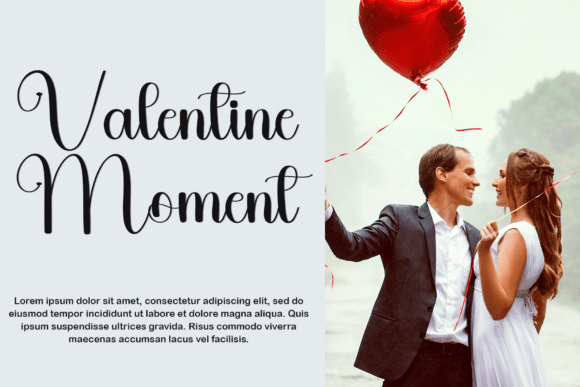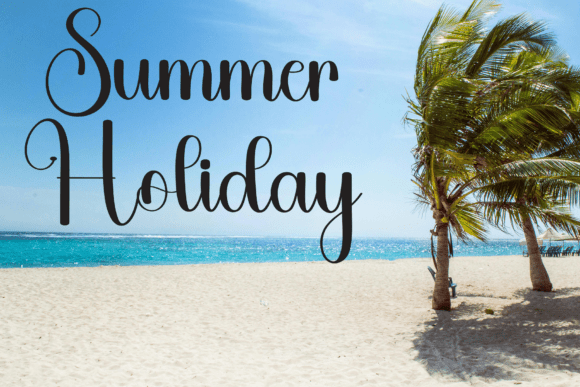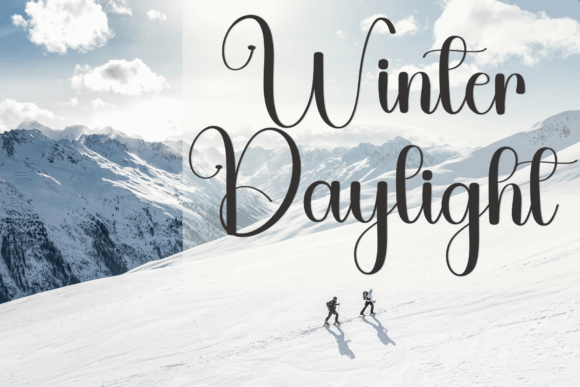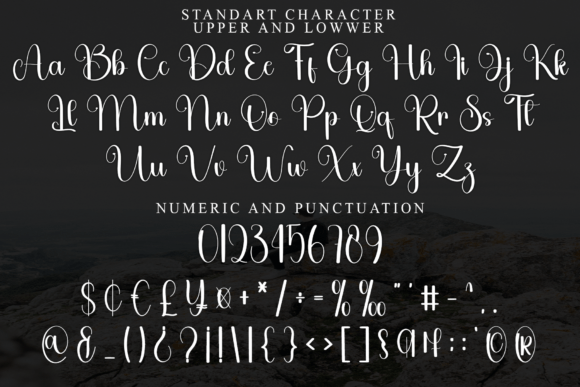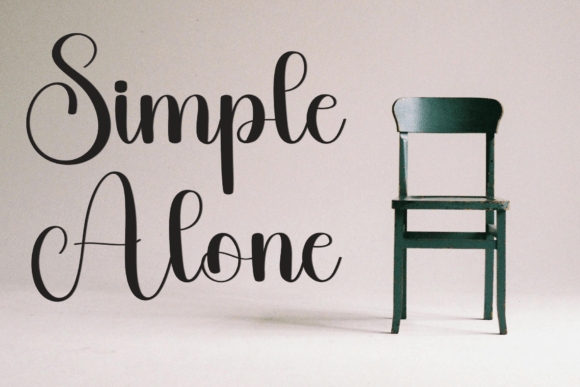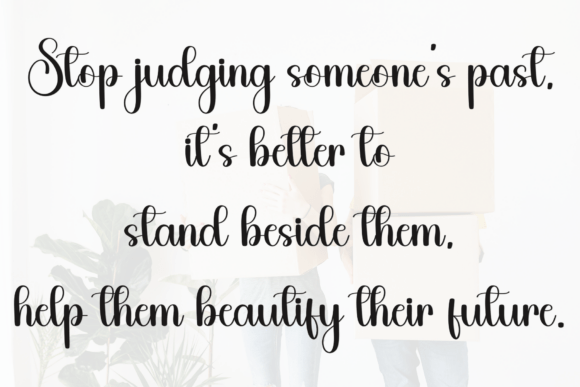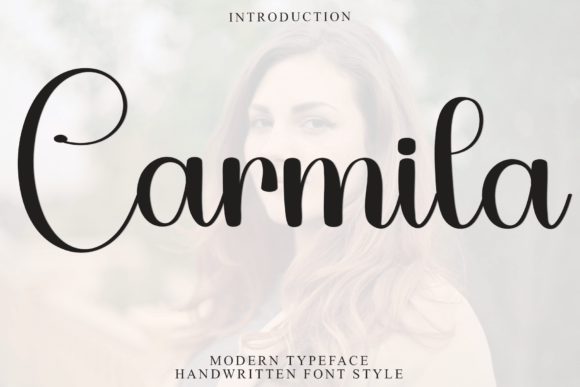
The Designer’s Delight: Exploring the Charm of Carmila Font
Have you ever been in the middle of a design project, and suddenly, you’re stuck on finding the perfect font? I recall a recent experience where I was working on a craft project, and my client specifically asked for a font that was both unique and elegant. After hours of searching, I stumbled upon the Carmila font, and it instantly became my go-to choice. In this article, we’ll dive into the world of Carmila font, exploring its features, uses, and what makes it a designer’s delight.
A Personal Review: What I Love About Carmila Font
Here’s what makes Carmila font stand out:
- ✨ Unique and eye-catching design: The soft, distinctive strokes of Carmila font give it a special character that sets it apart from other fonts.
- ✅ Versatility: With various characters, Carmila font is perfect for a wide range of design projects, crafts, and creative works.
- 🌟 Natural and elegant feel: The font’s natural style makes it ideal for designs that require a touch of sophistication and elegance.
While Carmila font is an excellent choice, there are a few things to keep in mind:
- 🤔 Requires some practice to master OpenType features: While Carmila font offers advanced OpenType features, it may take some time to get familiar with them.
The Story Behind Carmila Font
Carmila font was designed with the intention of creating a unique and elegant font that would cater to the needs of designers, crafters, and creative hobbyists. The font’s creator aimed to craft a font that would be both versatile and natural, making it perfect for a wide range of design projects.
| What makes Carmila font unique? | Carmila font is unique due to its soft, distinctive strokes that give it a special character. |
| Does Carmila font support OpenType features? | Yes, Carmila font offers advanced OpenType features, including glyphs and stylistic alternates. |
In conclusion, Carmila font is a beautiful and eye-catching font that offers a unique touch to any design project. Its versatility, natural feel, and compatibility with various platforms make it an excellent choice for designers, crafters, and creative hobbyists. With its advanced OpenType features and elegant design, Carmila font is sure to enhance your designs and appeal to a wide range of audiences.